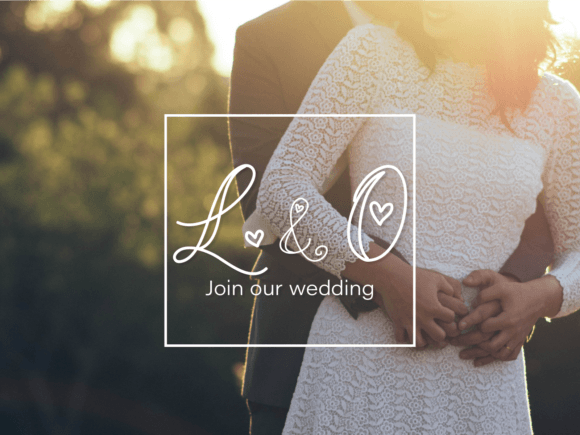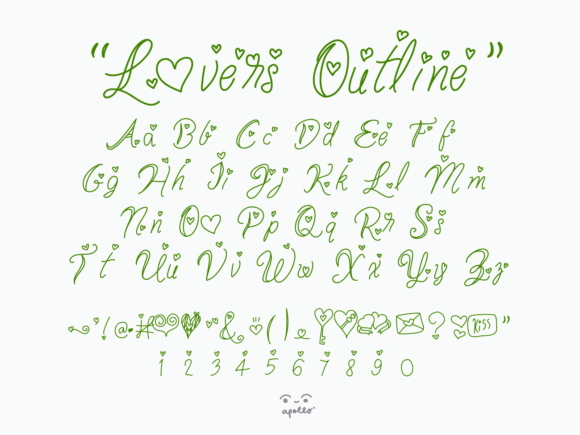
Introduction to Lovers Outline Font
Lovers Outline is a sweet and beautiful handwritten font with a special touch.
The Lovers Outlineโs natural and unique style makes it incredibly fitting to a large pool of designs The only limit is your imagination.
Key Features of Lovers Outline Font
Why Choose Lovers Outline Font?
Lovers Outline Font offers exceptional quality and versatility, making it a valuable addition to your design toolkit. Whether you’re creating for personal projects or commercial use, Lovers Outline Font delivers professional results.